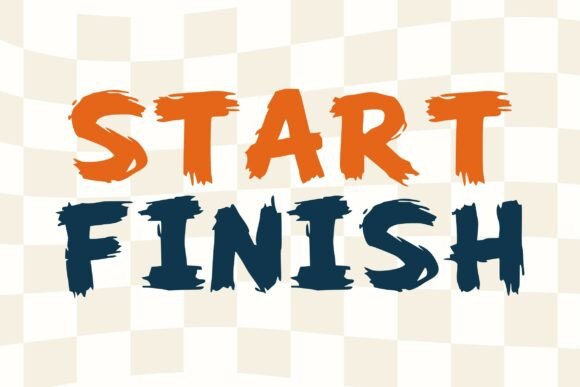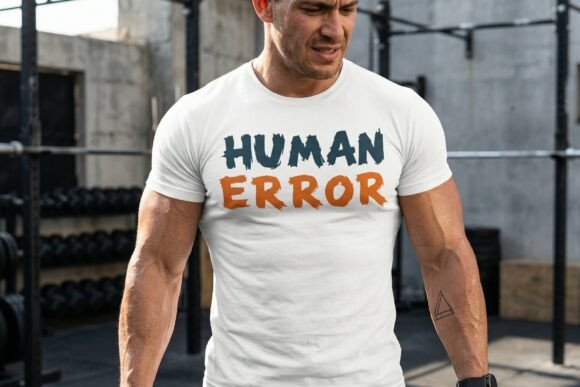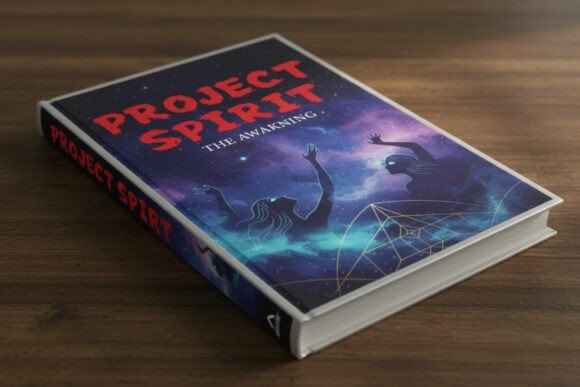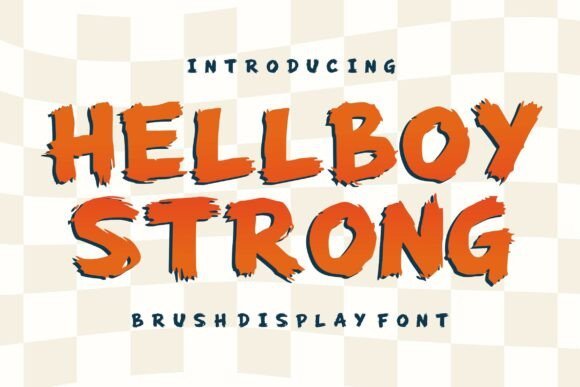
Introduction to Hellboy Strong Font
Hellboy Strong is a bold and expressive brush display font designed to make a powerful statement.
Featuring rough edges, textured strokes, and a handcrafted feel, this font delivers strong character and dynamic energy in every letter Perfect for posters, branding, headlines, comic titles, merchandise, packaging, social media graphics, and eye-catching designs.
Key Features of Hellboy Strong Font
Why Choose Hellboy Strong Font?